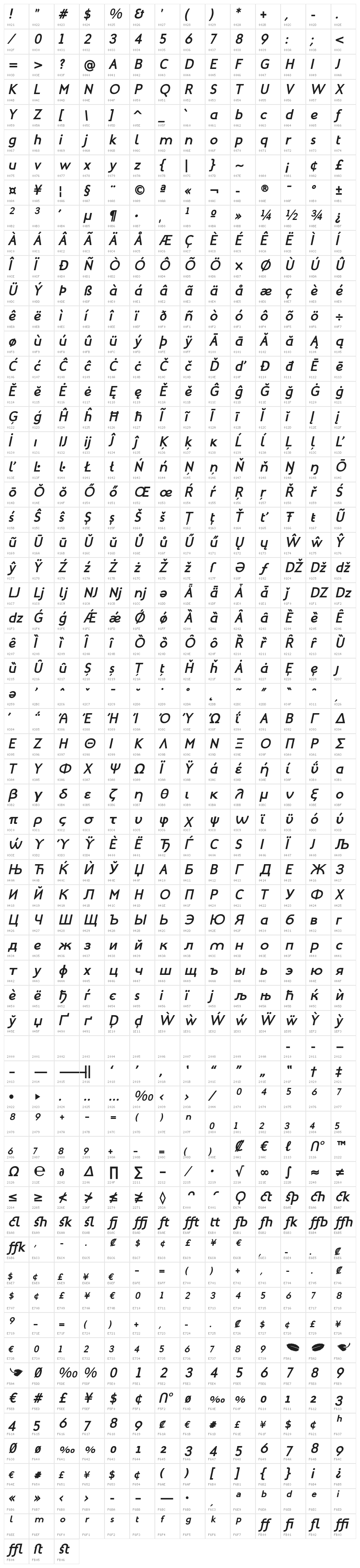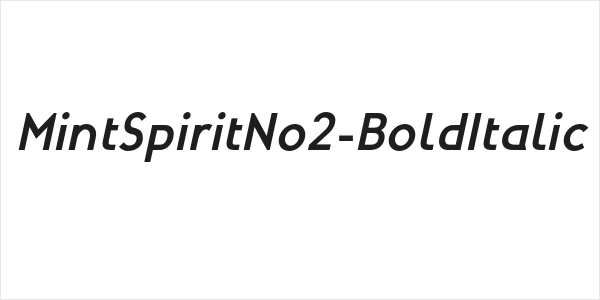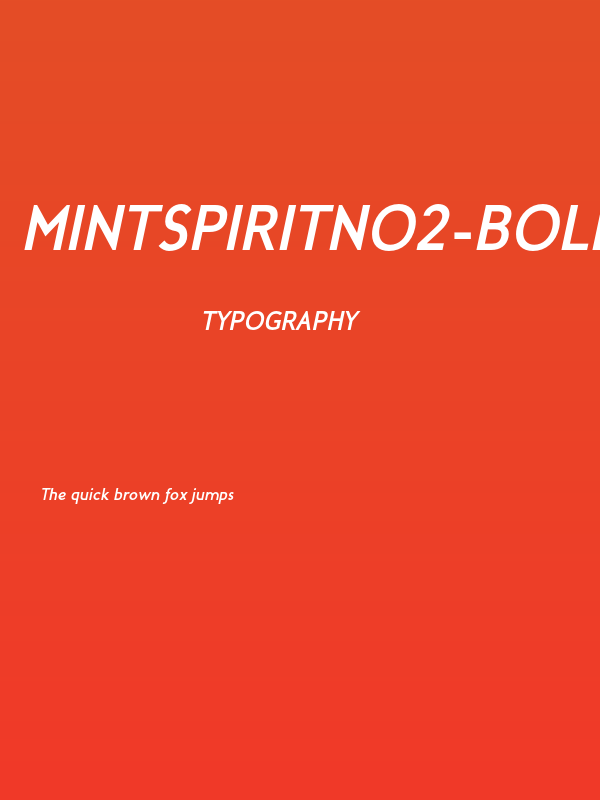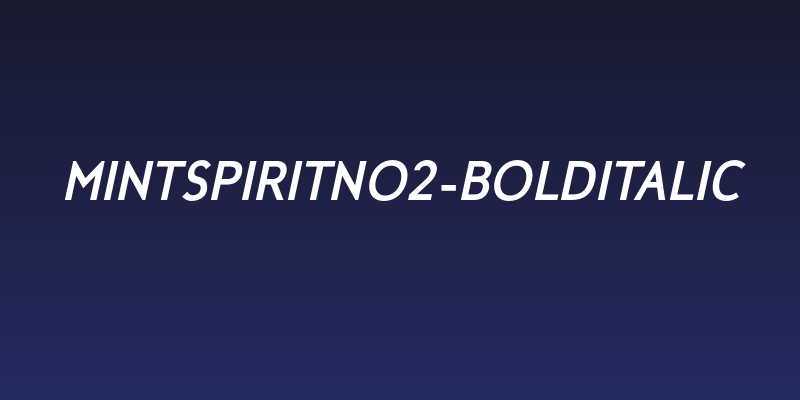
MintSpiritNo2-BoldItalic Font
MintSpiritNo2-BoldItalic Description
This font exhibits a modern and sleek design with a bold and italicized style. The characters are slightly slanted, giving a dynamic and forward-moving appearance. The strokes are consistent and smooth, providing a clean and professional look. The uppercase letters are well-proportioned, while the lowercase letters maintain a harmonious balance. The numerals are clear and legible, making them suitable for various applications. Special characters are distinct and integrate seamlessly with the overall design, enhancing its versatility.
| Use Case | Headlines, Logos, Advertising |
| Proposed Projects | Ideal for branding projects, headlines, advertising materials, and digital content that require a modern and professional touch. |